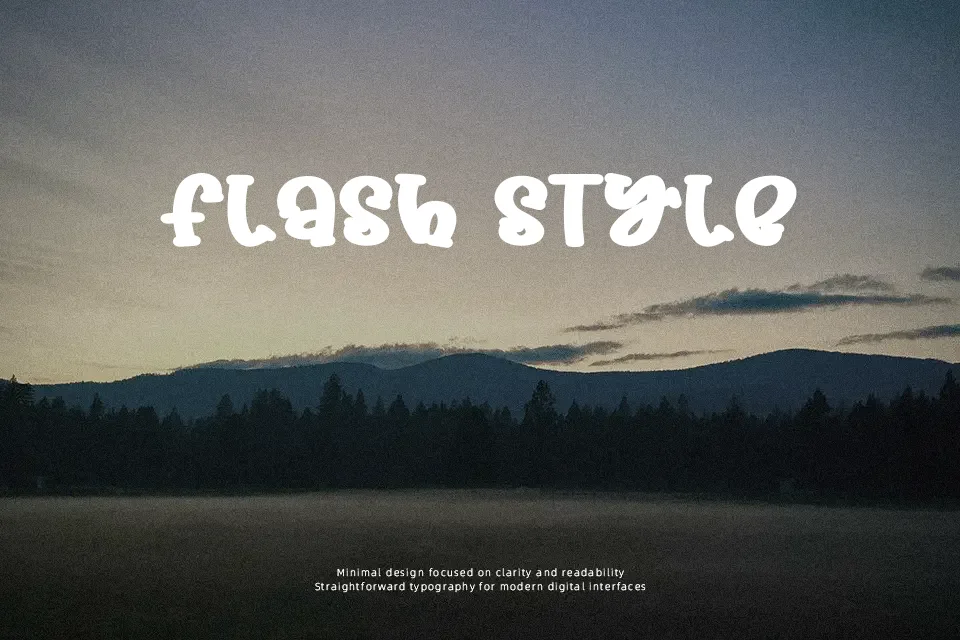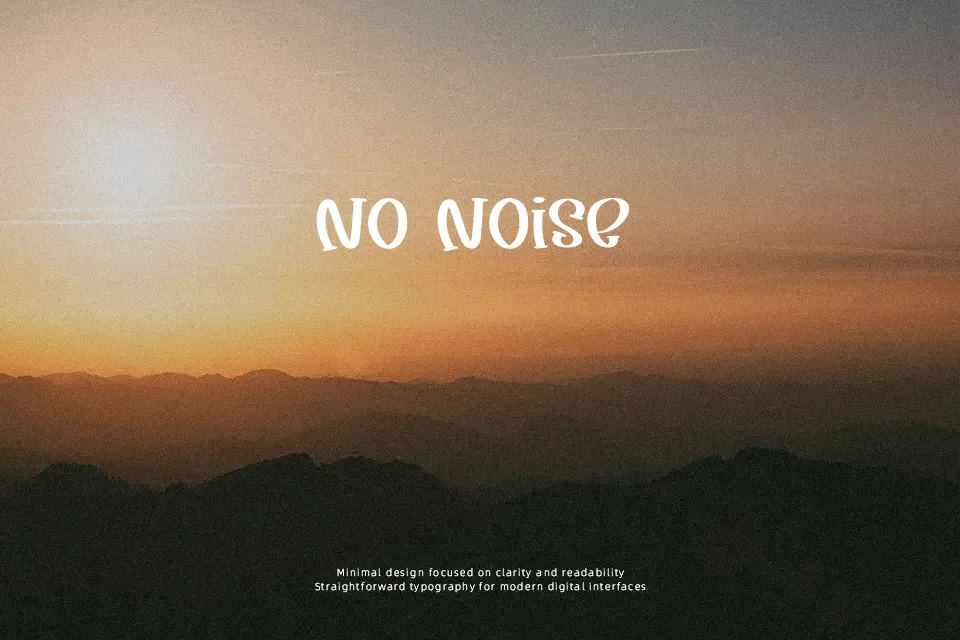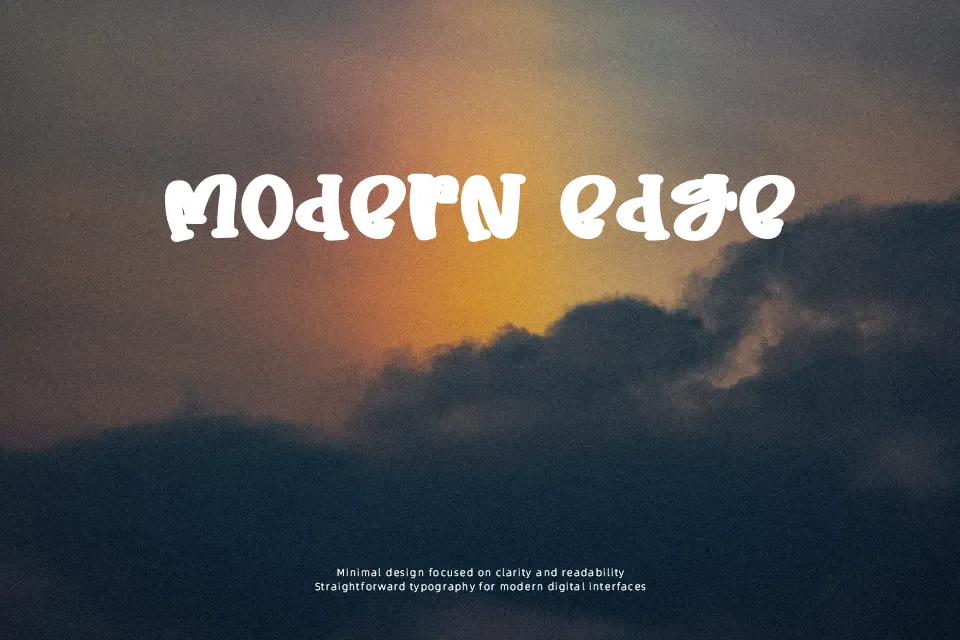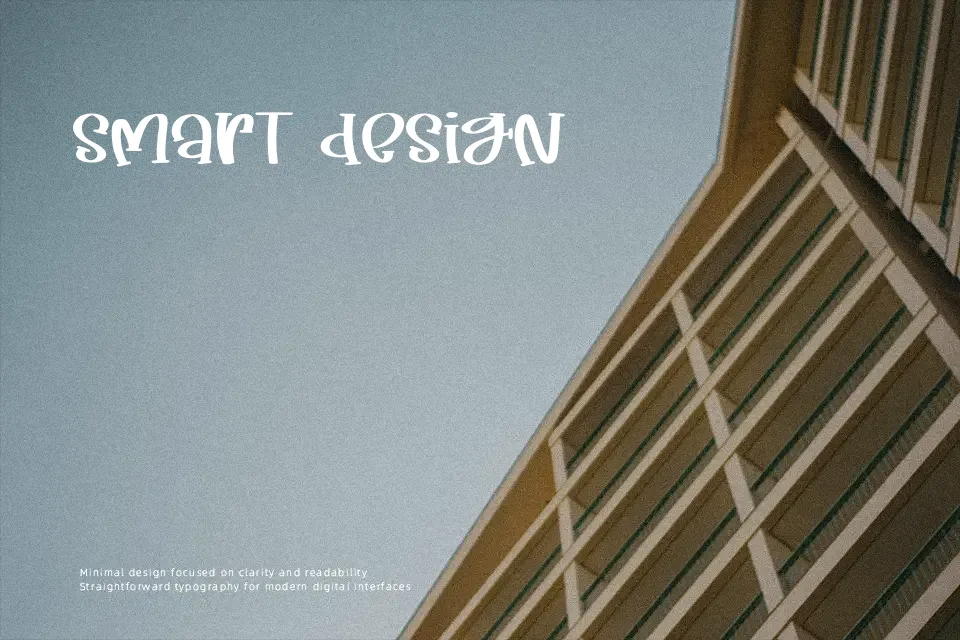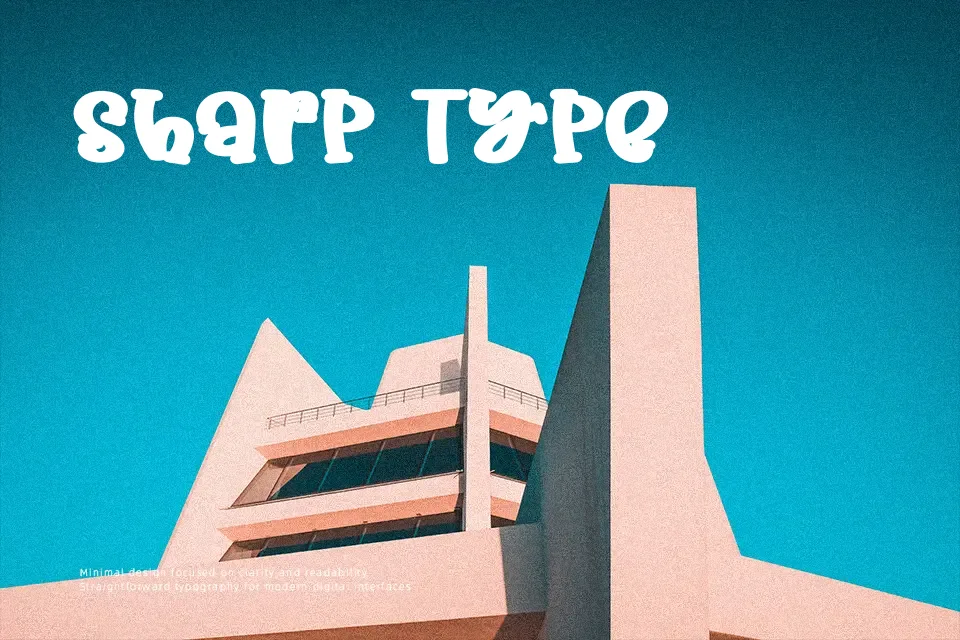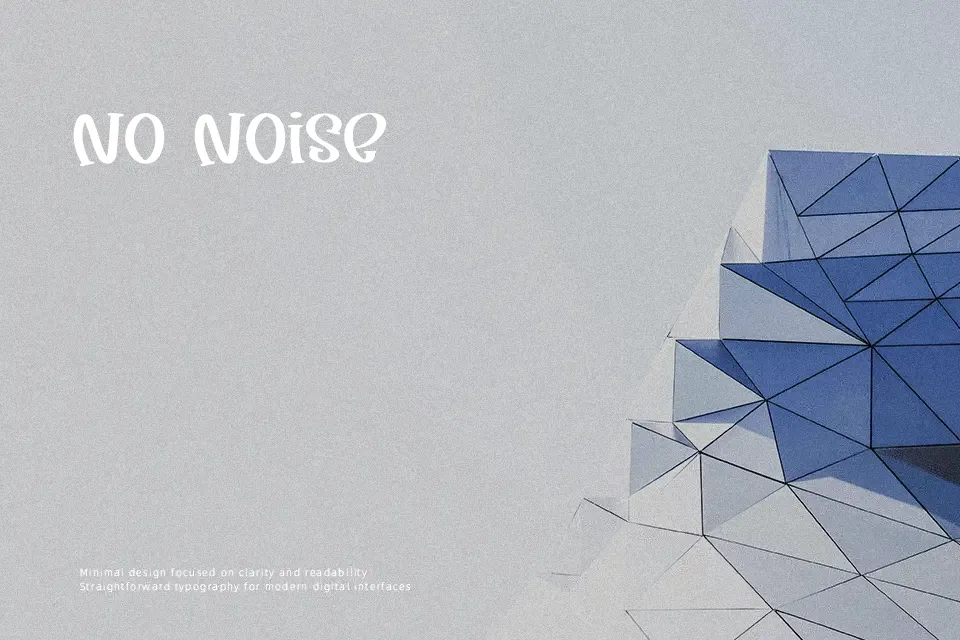
Tasty Food Font
Designed by Qaratype
Built on generous, pillowy contours, Tasty Food Font pairs ultra-heavy stroke weights with tight character spacing to create an exuberant cartoon aesthetic. The letterforms display soft, bulbous terminals and minimal stroke contrast, establishing a cheerful visual rhythm that remains legible in short titles. Uppercase forms maintain consistent vertical proportions, though narrow counters can fill in quickly if reduced too drastically. While punchy in oversized promotional banners, dense layouts and extended body passages become uncomfortable due to the weighty mass of each glyph. The typeface excels when headlines require an energetic, lighthearted tone.
Best For: snack packaging, casual dining menu headers, children’s event posters, playful YouTube thumbnails
Not Ideal For: continuous reading passages, corporate documentation, mobile app body copy, fine-print legal disclosures
Perfect for branding, headline, and kids, with a bold and cartoon style.